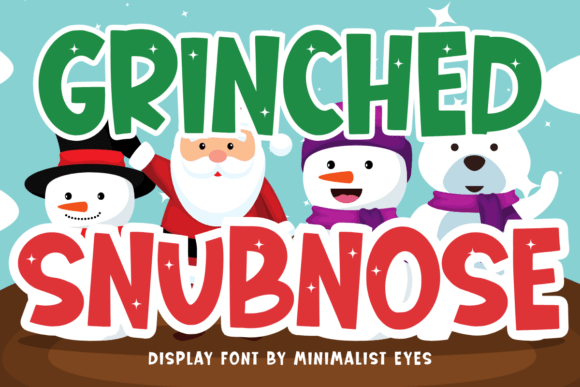
Adding a Dose of Fun to Your Designs
Have you ever stared at a blank page, eager to bring a new project to life, but struggling to find the perfect font to capture its essence? We’ve all been there – the blank slate staring back, taunting us with its emptiness. But what if we told you that the perfect font is just a click away?
Meet the Grinched Snubnose Font, a bold and playful display font designed to add a dash of fun and whimsy to your creative projects. Whether you’re crafting planners, greeting cards, or party invites, this font is the perfect addition to bring a cheerful touch to your work. Its versatility and charm make it a valuable asset for designers, allowing you to shine in everything from social media graphics to apparel and beyond.
Grinched Snubnose Font Key Features
- Font Family: Grinched Snubnose
- Unique Characteristic: Distinctive, grinch-like characters with a snubnose shape, ideal for playful and whimsical designs
Grinched Snubnose Font Review
Overall, I think the Grinched Snubnose Font is an interesting choice for designers looking for something unique. ✨ The font’s asymmetrical and imperfect style adds a touch of personality to any text, making it perfect for titles or headings.
Some of the things that work well for the Grinched Snubnose Font include:
- ✨ Unique style: The font’s irregular shape and uneven letter spacing give it a hand-drawn feel that’s hard to find in other fonts.
- ✨ Versatility: The font can be used for a wide range of designs, from playful and informal to edgy and avant-garde.
- ✨ Expressiveness: The font’s imperfections make it perfect for conveying a sense of personality or emotion in a design.
- ⚠️ Readability: The font’s irregular style can make it difficult to read, especially for long blocks of text.
- ⚠️ Limited legibility: The font’s uneven letter spacing and imperfections can make it hard to distinguish between certain letters.
Overall, I think the Grinched Snubnose Font is a great choice for designers who want to add a touch of personality to their designs. However, it may not be the best choice for designs that require a lot of text or need to be highly legible.
Experiment with different font sizes, colors, and effects to create unique text styles.
Pair the Grinched Snubnose Font with bold or italic fonts to create visual interest.
Use the font to add a touch of whimsy or playfulness to your designs.
Use the Grinched Snubnose Font for:
Children’s book covers or illustrations.
Party invitations or flyers.
Wedding stationery or decorations.
Alternatives to Grinched Snubnose Font
Bad Script
Bad Script is a playful, handwritten font that can add a touch of whimsy to your designs. It’s ideal for creating a friendly, approachable atmosphere and is commonly used in branding, advertising, and editorial content. Compared to Grinched Snubnose Font, Bad Script has a more casual, cursive feel, making it perfect for designs that require a more relaxed tone.
Great Vibes is a modern, elegant script font that’s perfect for creating a sophisticated, high-end look. It’s commonly used in luxury branding, fashion, and fine art. Compared to Grinched Snubnose Font, Great Vibes has a more refined, polished feel, making it ideal for designs that require a sense of sophistication and elegance.
Carolyna Pro is a versatile, modern script font that’s perfect for creating a balanced, professional look. It’s commonly used in corporate branding, publishing, and digital content. Compared to Grinched Snubnose Font, Carolyna Pro has a more streamlined, modern feel, making it ideal for designs that require a sense of professionalism and sophistication.
Q: What is the recommended font pairing for Grinched Snubnose?
Grinched Snubnose is a versatile font that can be paired with a variety of font styles, depending on the desired aesthetic. For a modern look, pair Grinched Snubnose with a clean sans-serif font like Open Sans or Lato. For a more traditional look, pair it with a serif font like Georgia or Merriweather.